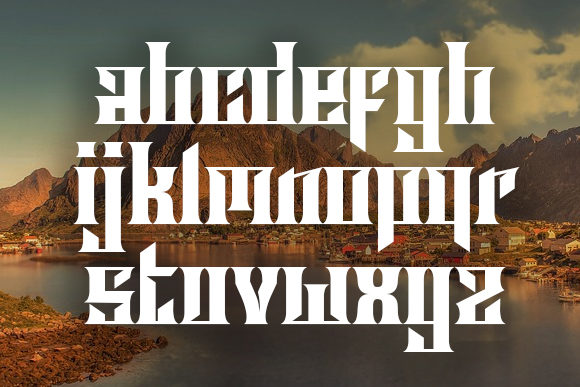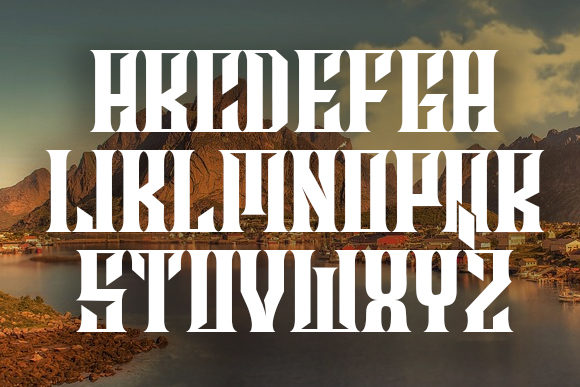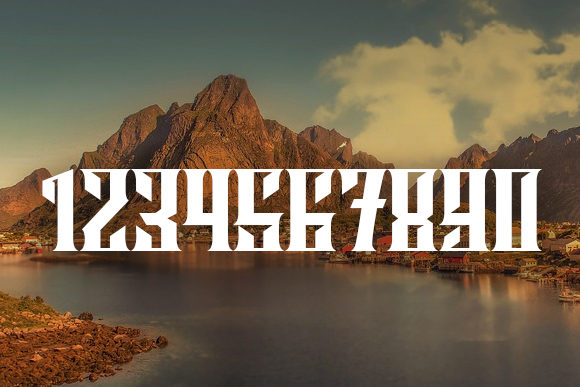
A Game-Changing Discovery: Archipelago Font
Archipelago is a modern gothic display font family that comes in four various styles. It’s a versatile and powerful tool that can elevate any design project. In this article, I’ll share my experience with Archipelago, its features, and how to make the most of it.
Here’s what I love about Archipelago Font:
- ✨ Unique Gothic Style: Archipelago boasts a distinctive gothic aesthetic that’s perfect for designs that require a touch of mystery and elegance.
- ✅ Variety of Styles: With four different styles to choose from, you can experiment with various looks and find the one that best suits your project.
- 💡 Excellent Legibility: Despite its ornate design, Archipelago remains highly legible, making it ideal for headlines, titles, and short paragraphs.
And, of course, no font is perfect. Here are a few quirks to consider:
- 🤔 Limited Use Cases: Archipelago is a display font, which means it’s best suited for headlines and titles. It might not be the best choice for body text or lengthy paragraphs.
- ⚠️ Glyph Limitations: While Archipelago has a wide range of glyphs, it might not have every special character or symbol you need. Be sure to check the font’s capabilities before committing to a project.
Archipelago font comes with a range of OpenType features, including stylistic alternates, ligatures, and glyphs. To access these features, you’ll need to use a design platform that supports OpenType. Here are a few tips:
The Story Behind Archipelago: A Designer’s Inspiration
Archipelago was designed with the goal of creating a modern gothic font that exudes elegance and mystery. The designer aimed to craft a font that would be versatile and powerful, capable of elevating any design project. Inspired by the beauty of archipelagos and the mystery of the gothic style, Archipelago was born.
Q: Can I use Archipelago Font for branding and logo design?
A: Absolutely! Archipelago’s unique gothic style makes it an excellent choice for branding and logo design.
Q: Is Archipelago Font suitable for body text?
A: While Archipelago is a beautiful font, it’s best suited for headlines and titles. For body text, consider using a more legible font.